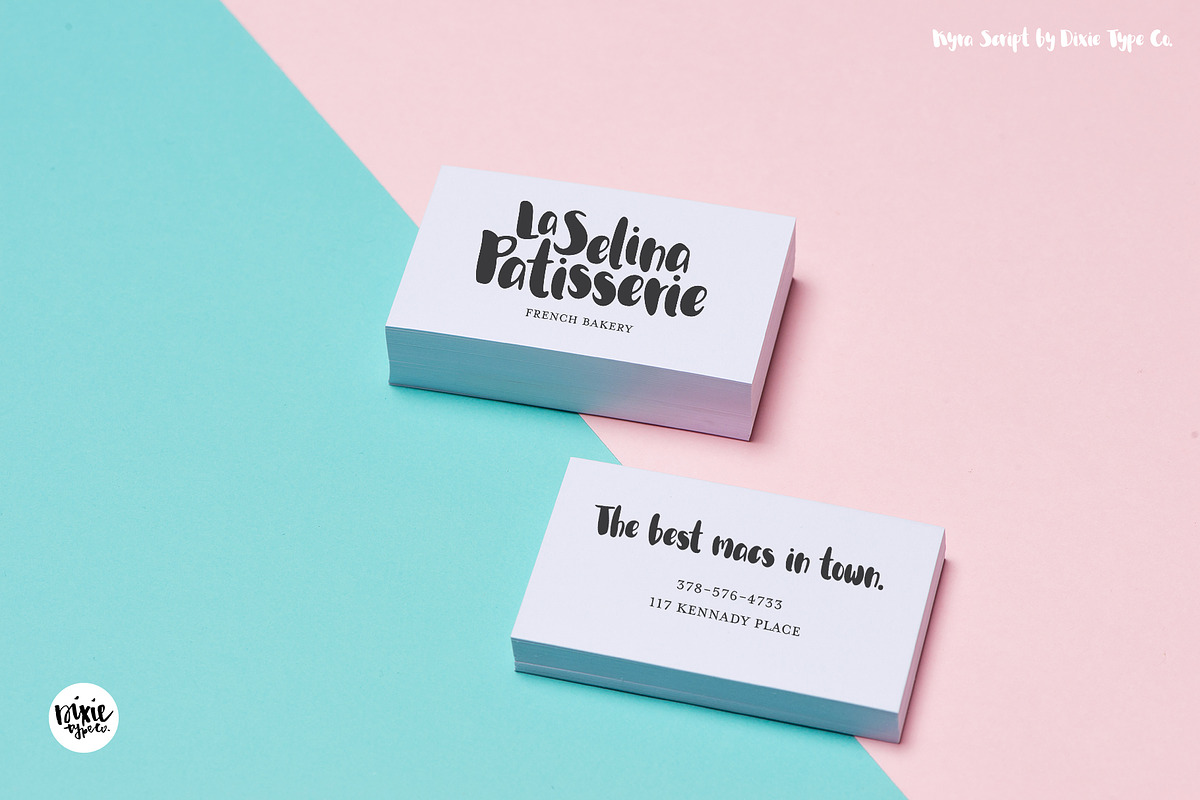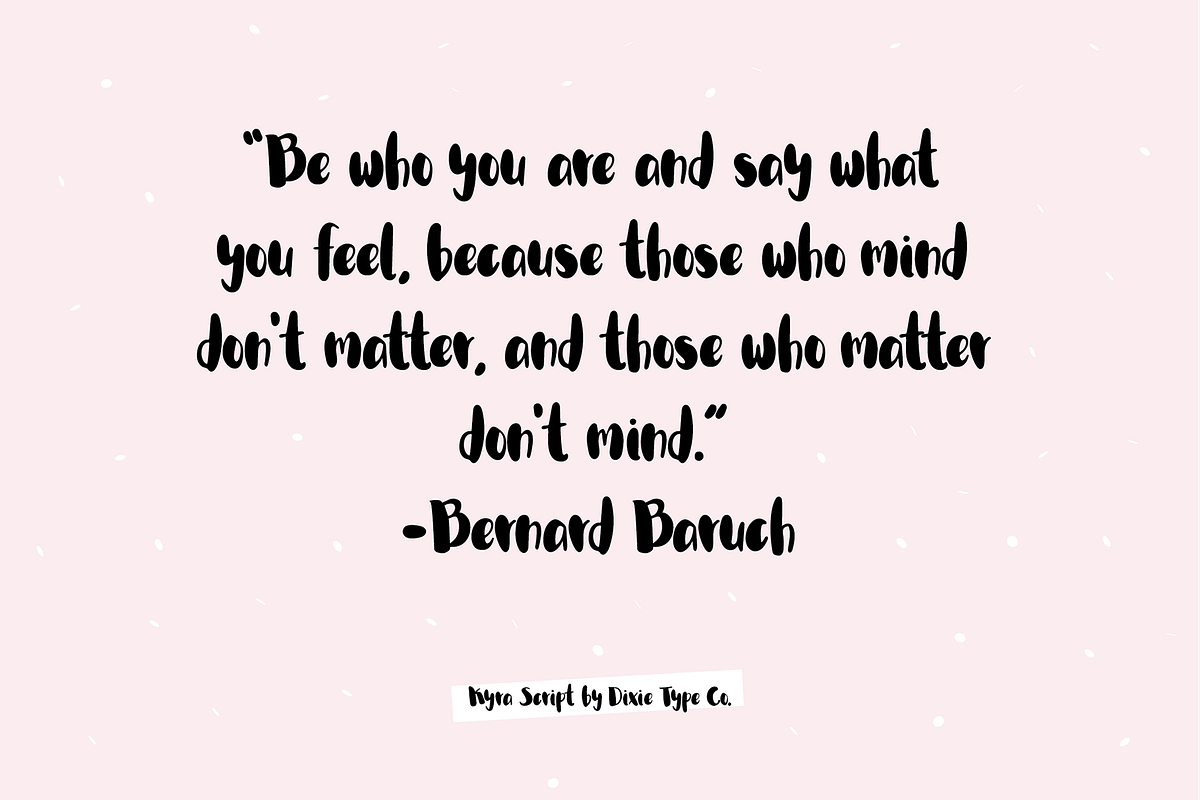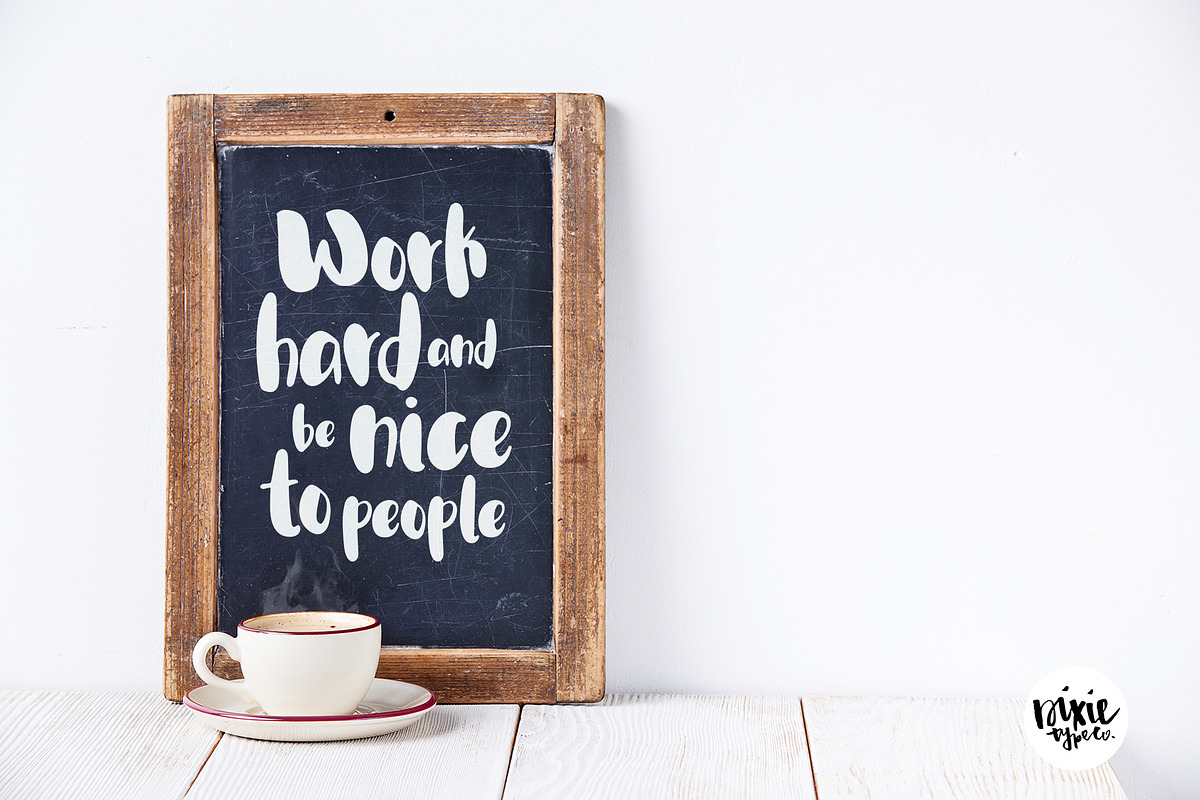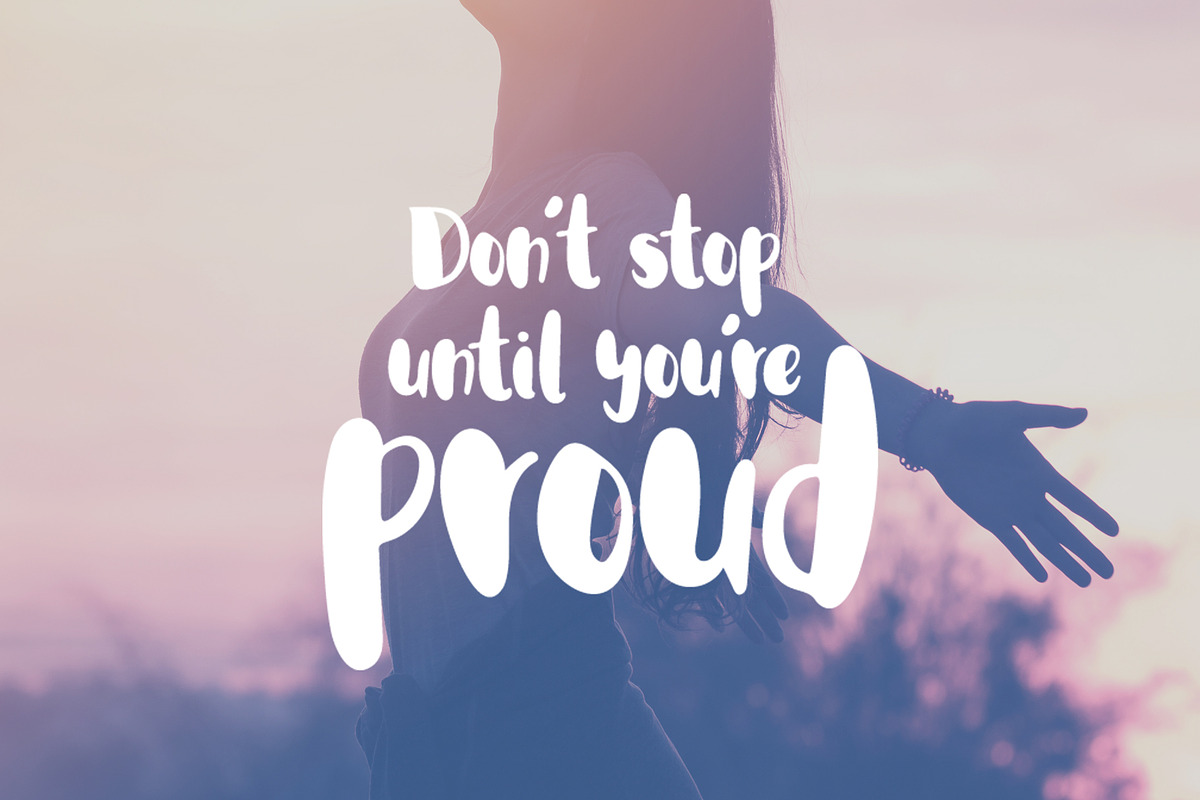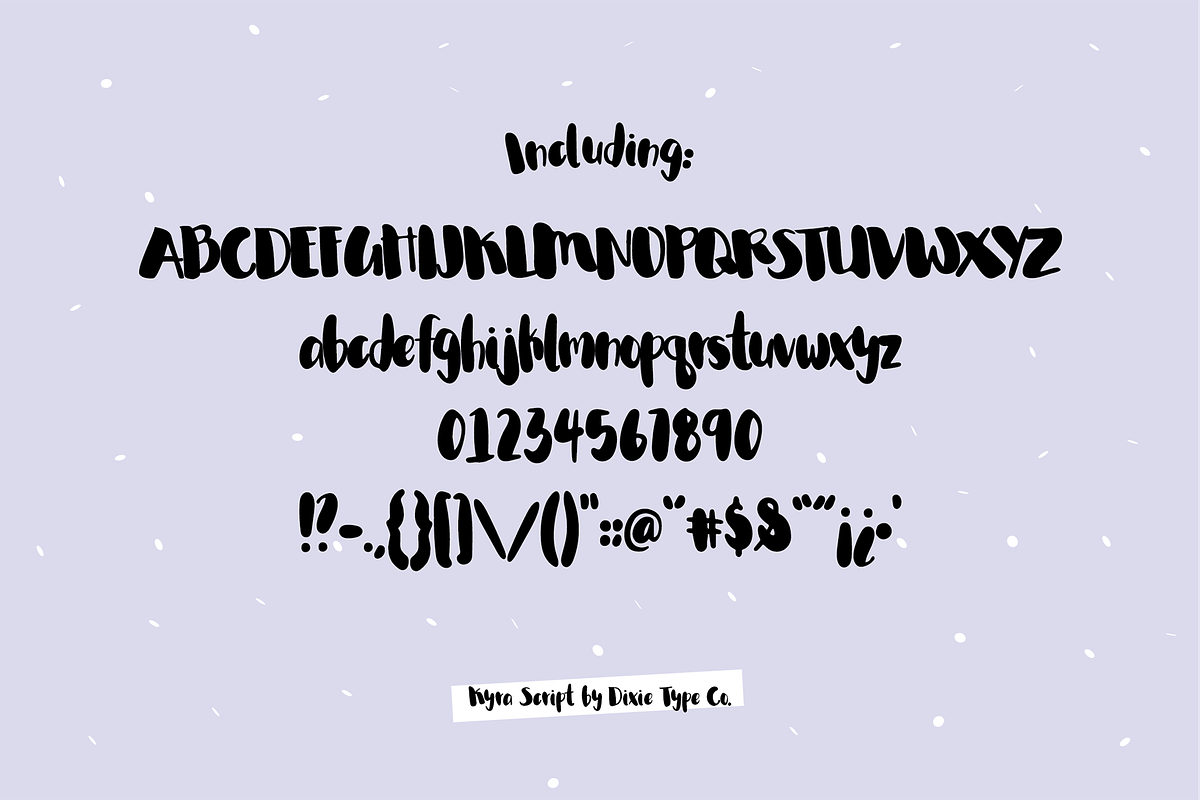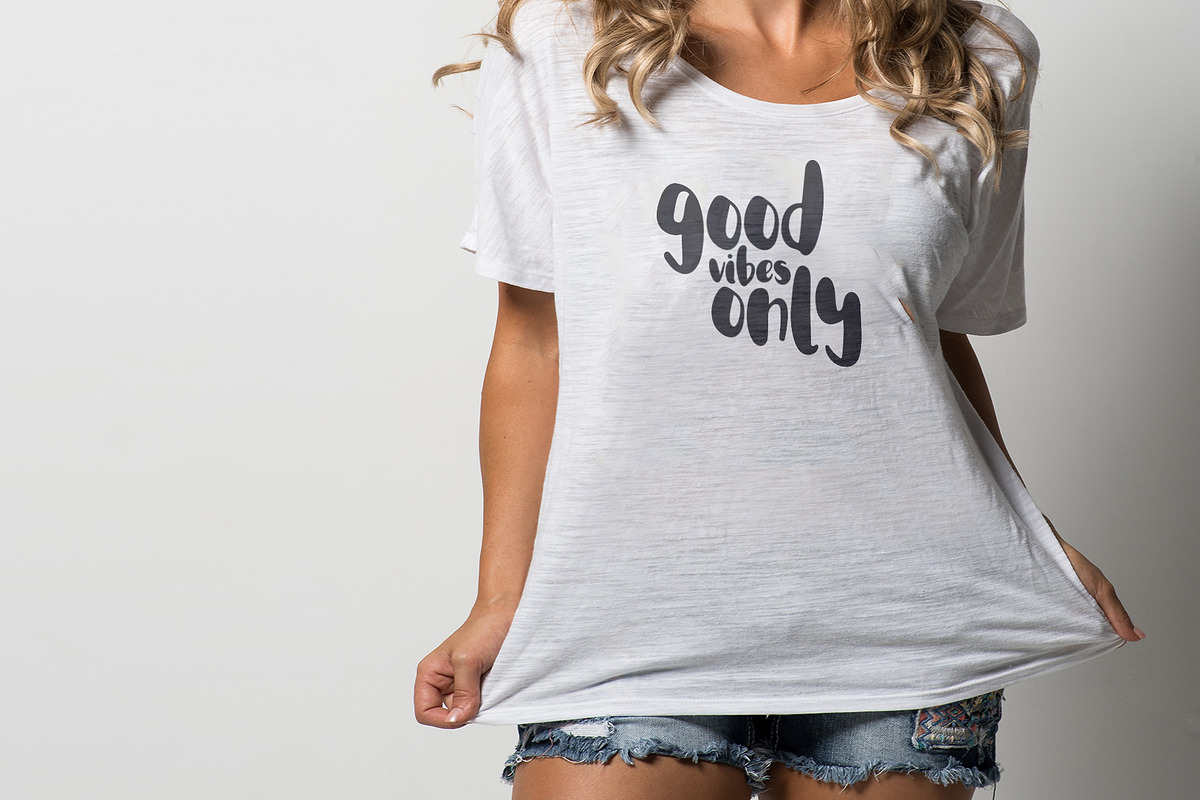
Kyra Script Brush Font
{ A typographic font hand-lettered with love by Dixie Type Co. }
Our popular letter set "Kyra Script" is now an installable font! This version also includes (new!) lowercase letters and punctuation marks!
KYRA SCRIPT is a fun and bold display font that was hand lettered with a brush and ink.
- This version also includes (new!) lowercase letters and punctuation marks!
- Font includes: Upper and lowercase glyphs, numbers, and 35 additional characters (not all pictured).